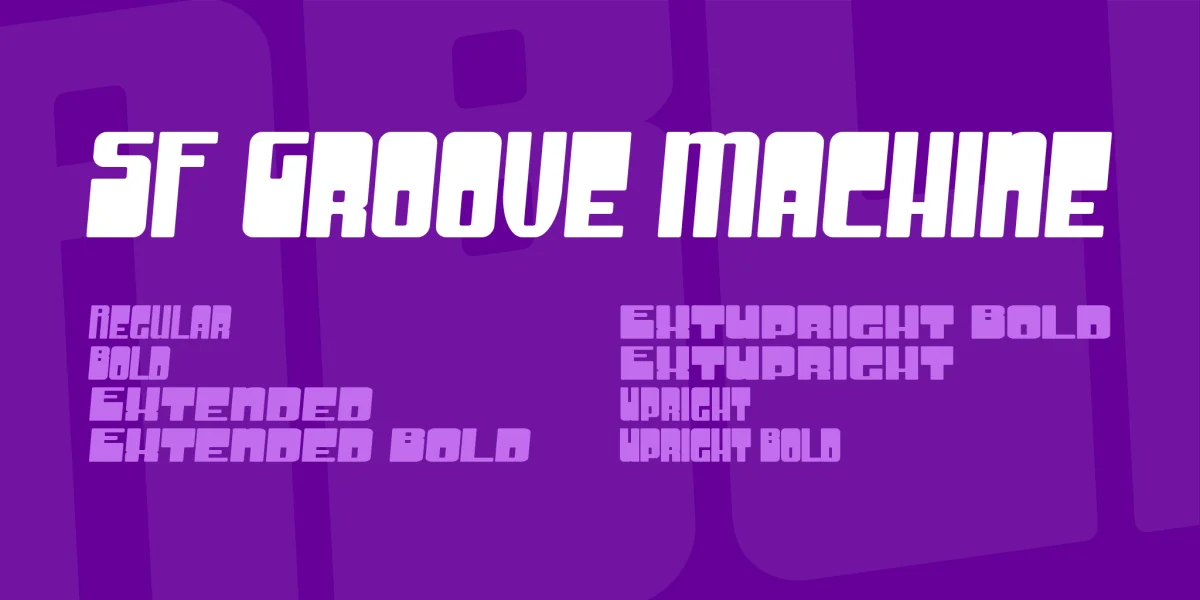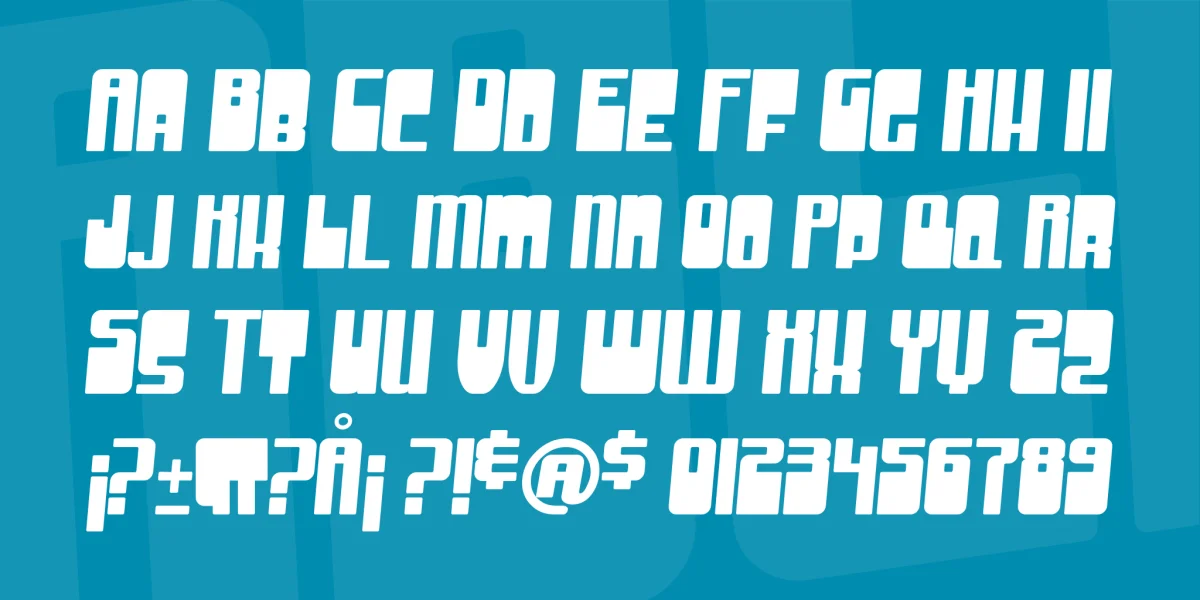
A typeface that's just as groovy as Johnny Bravo, SF Groove Machine contains lowercase and uppercase letters, numbers, punctuation, and accented characters.